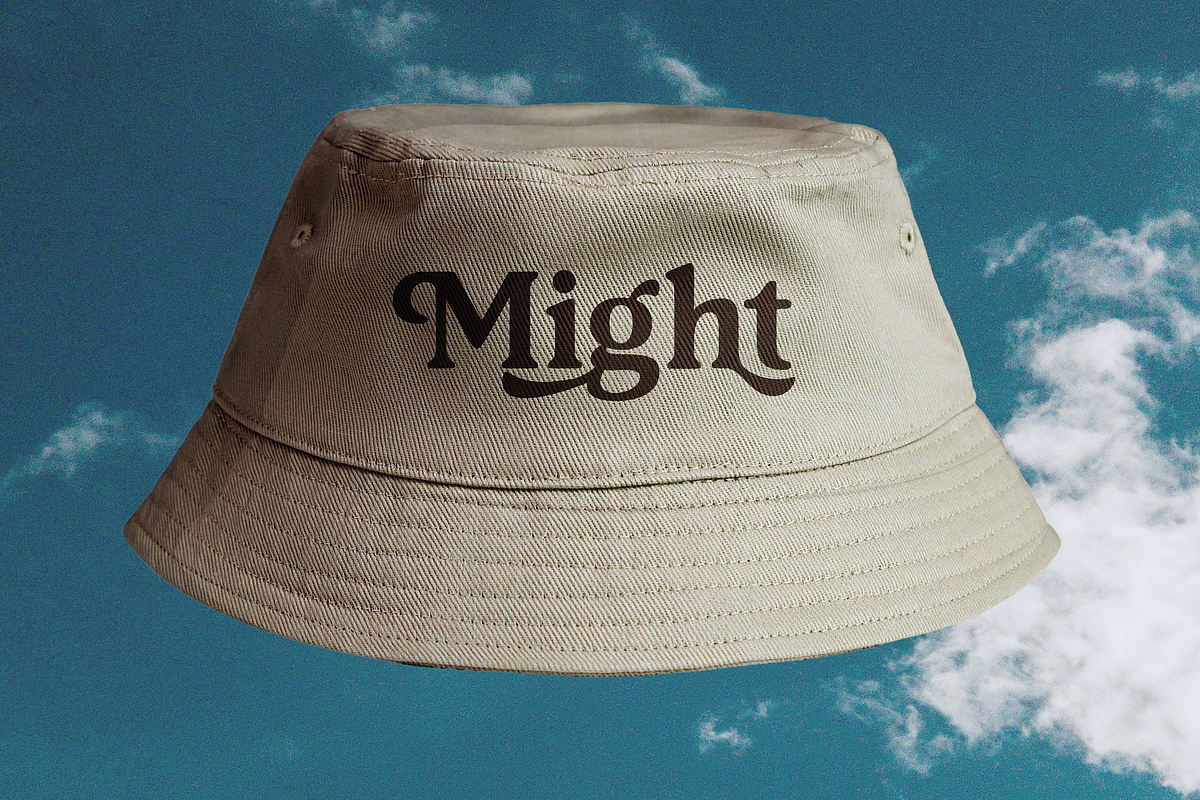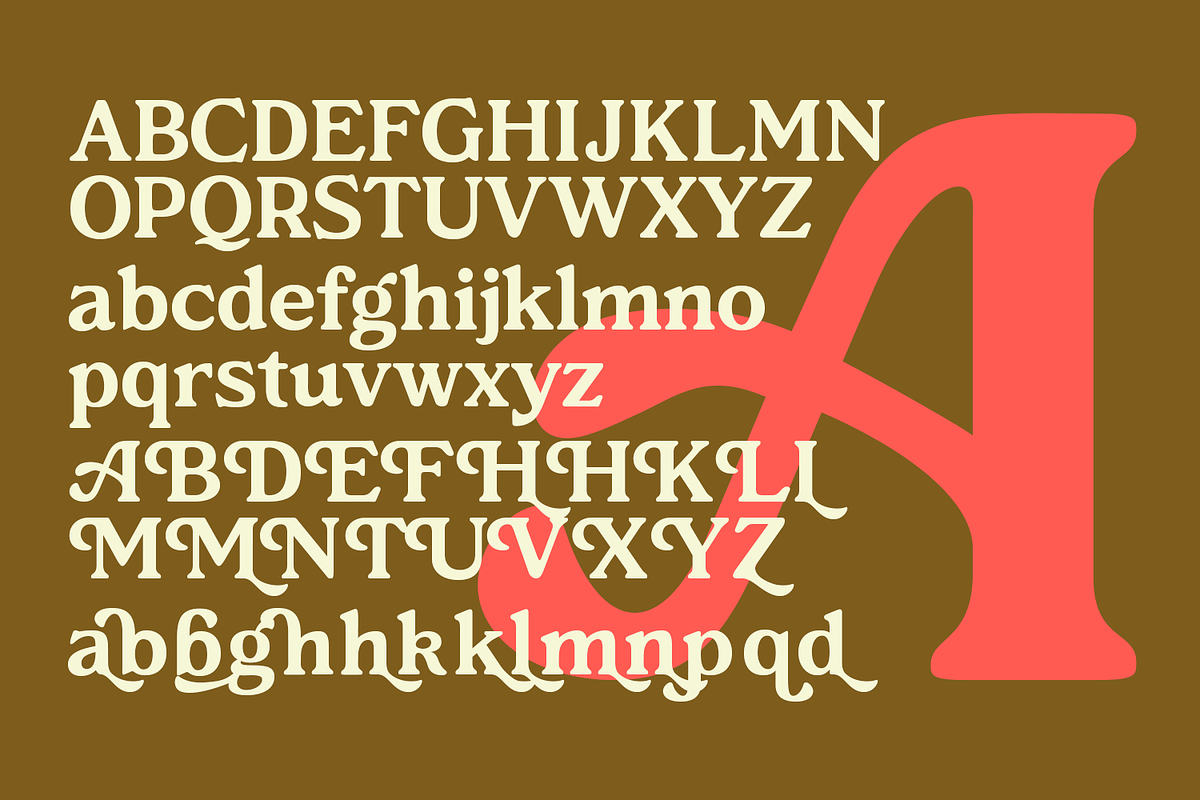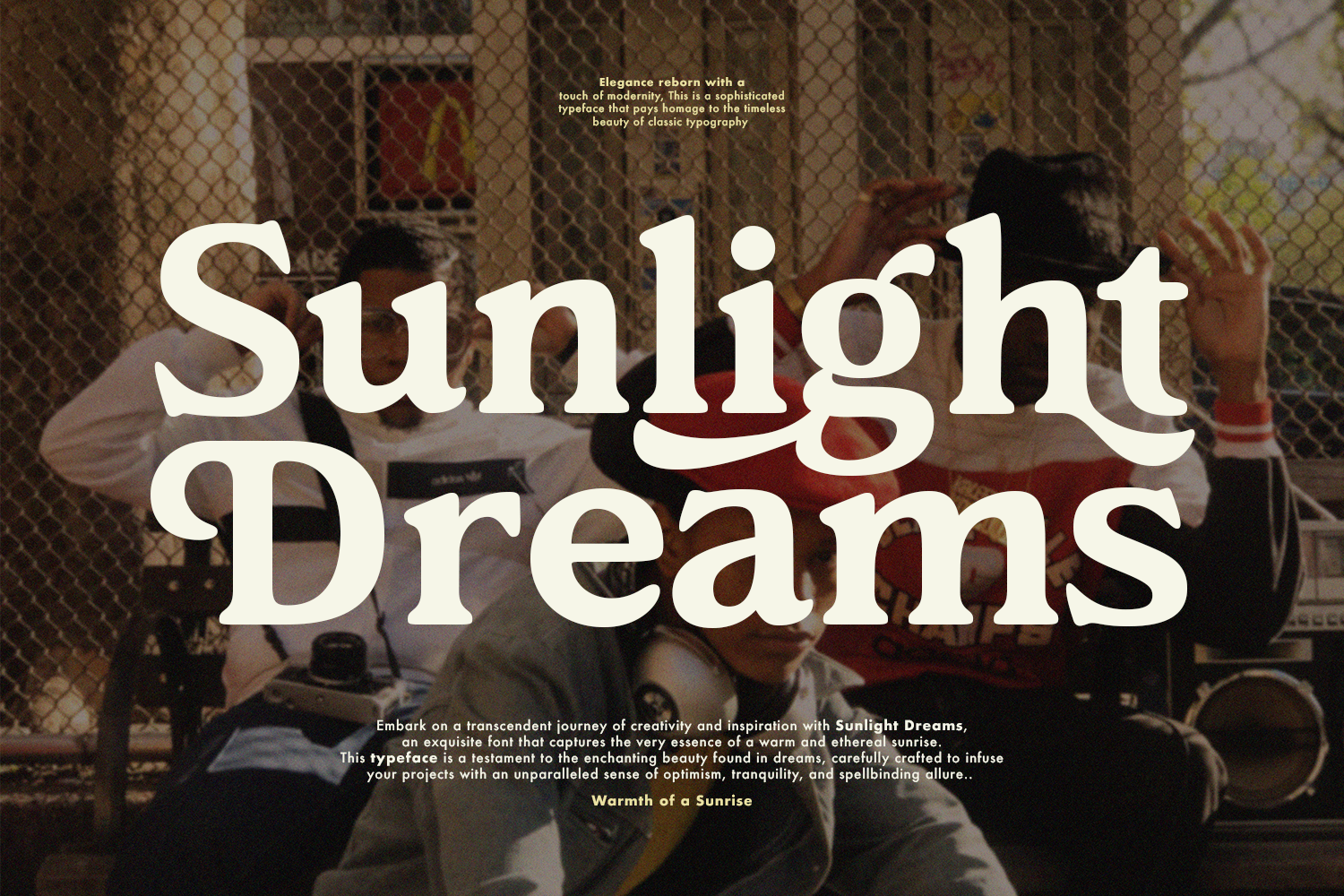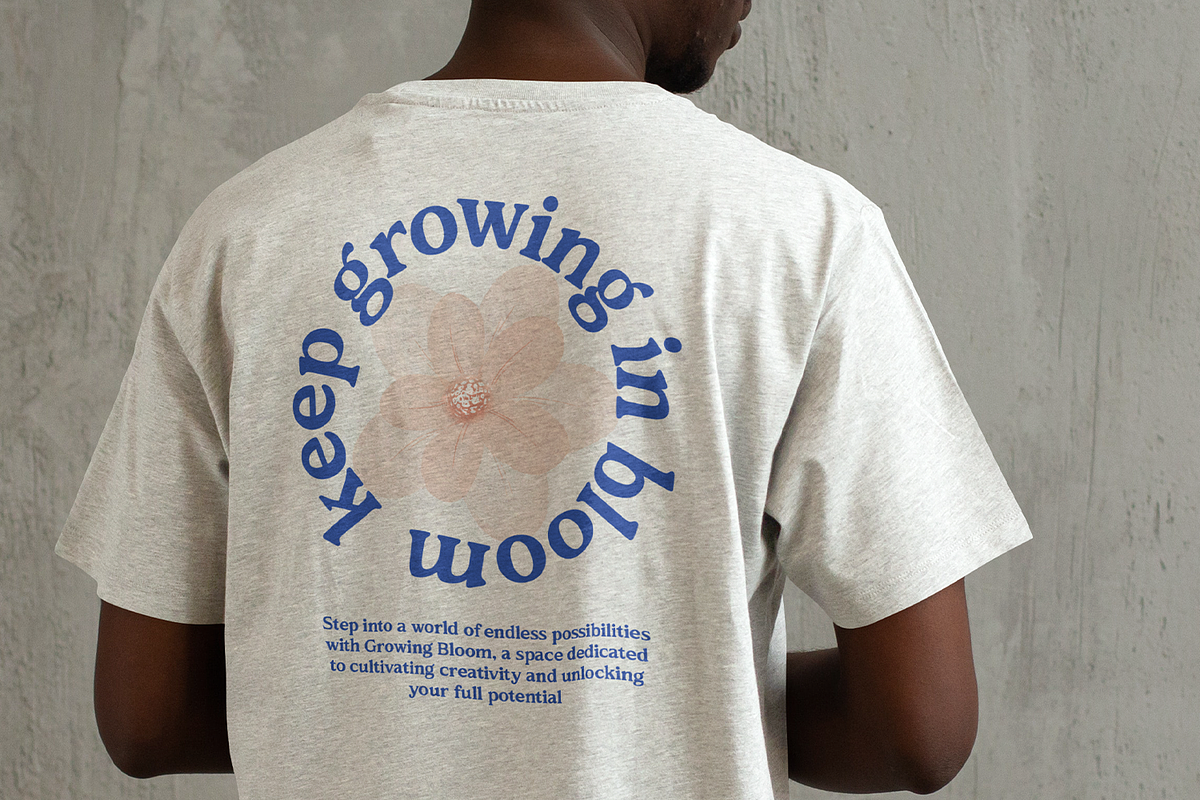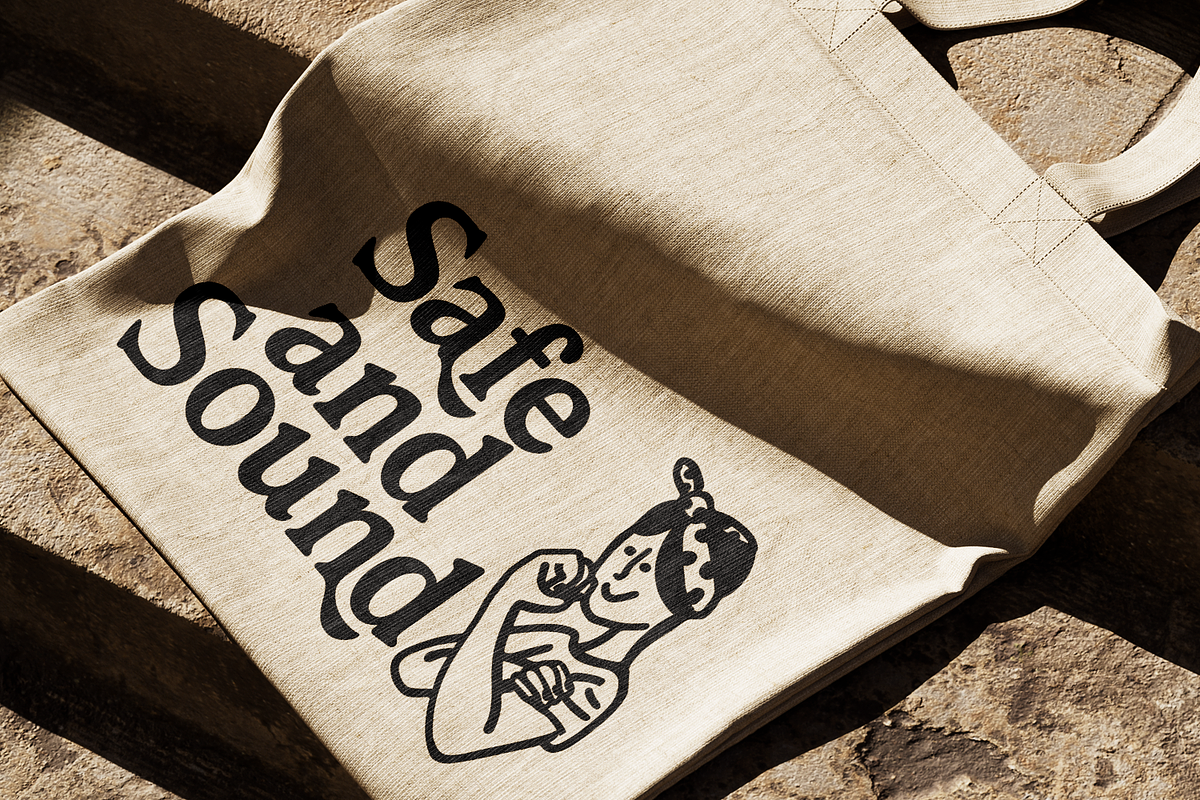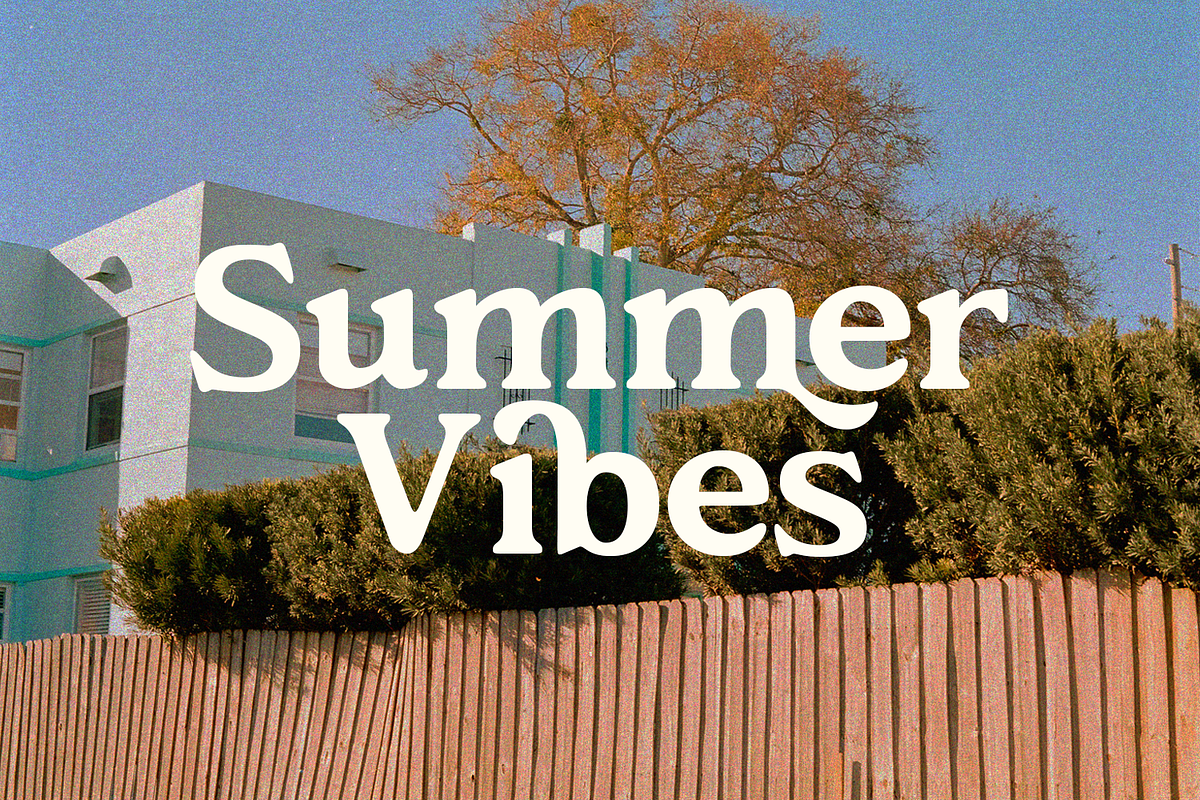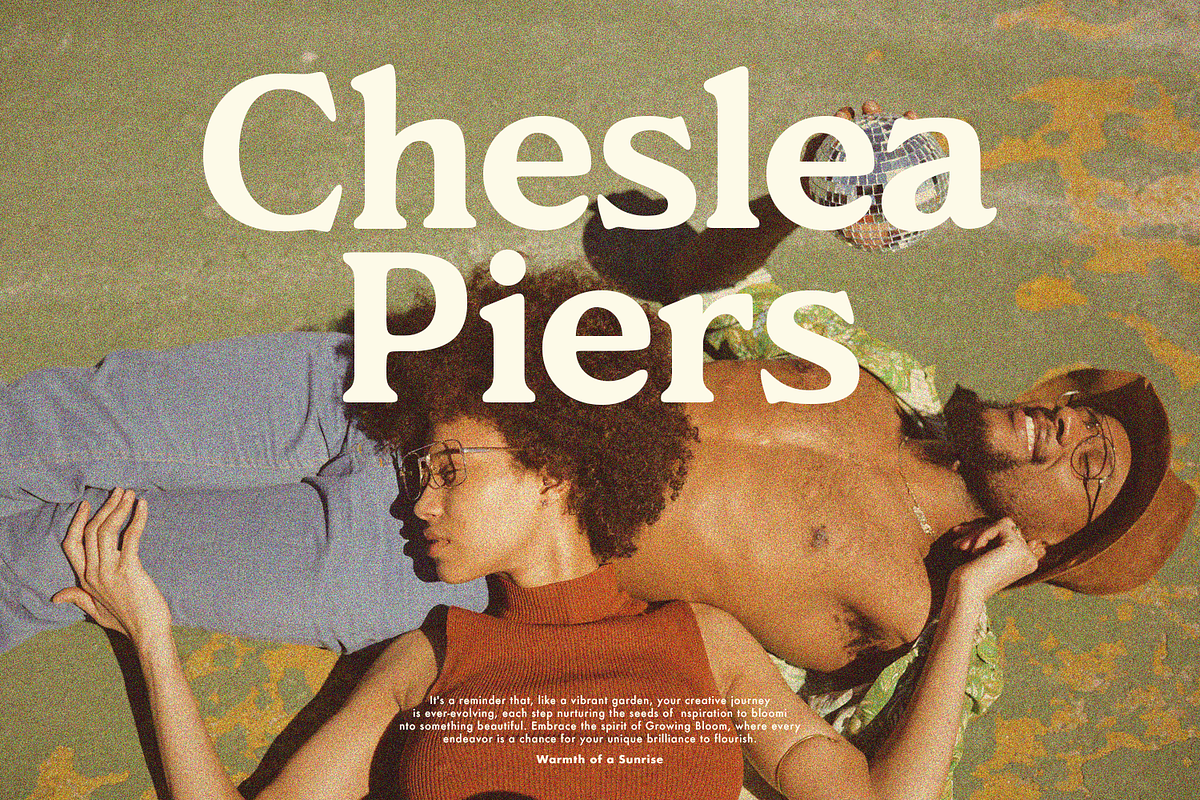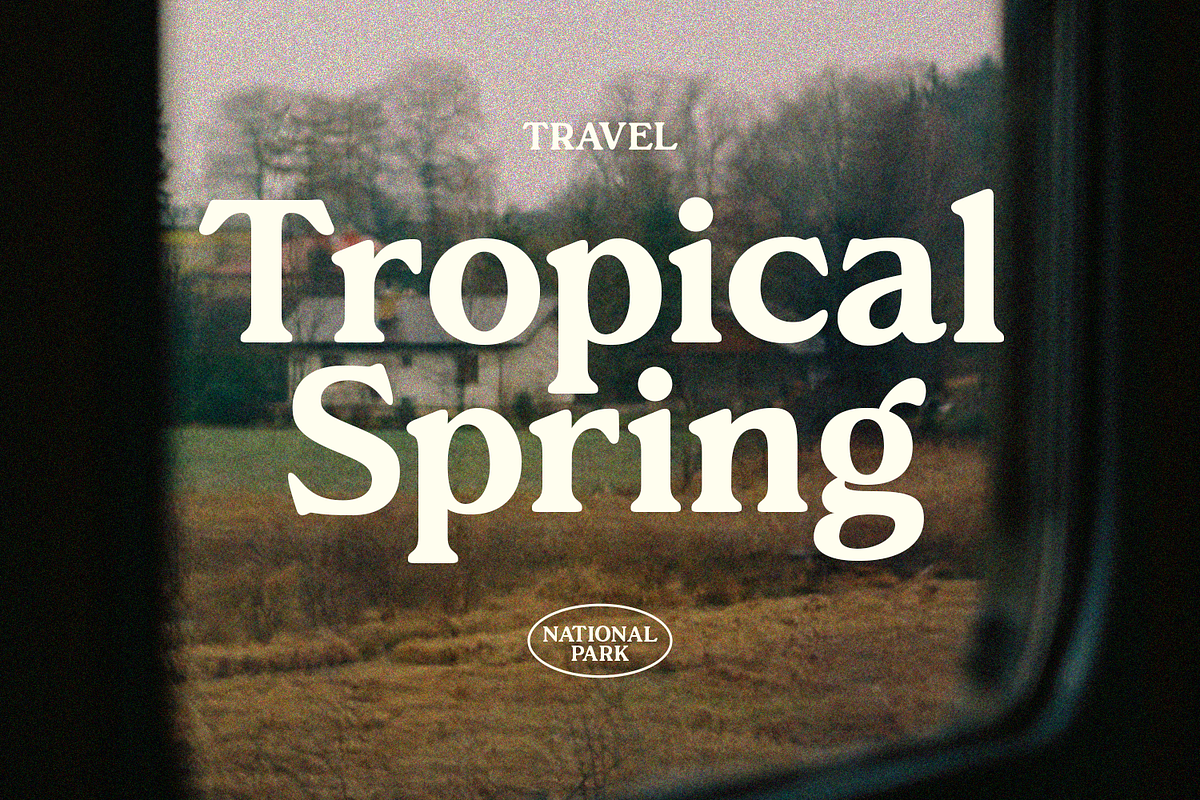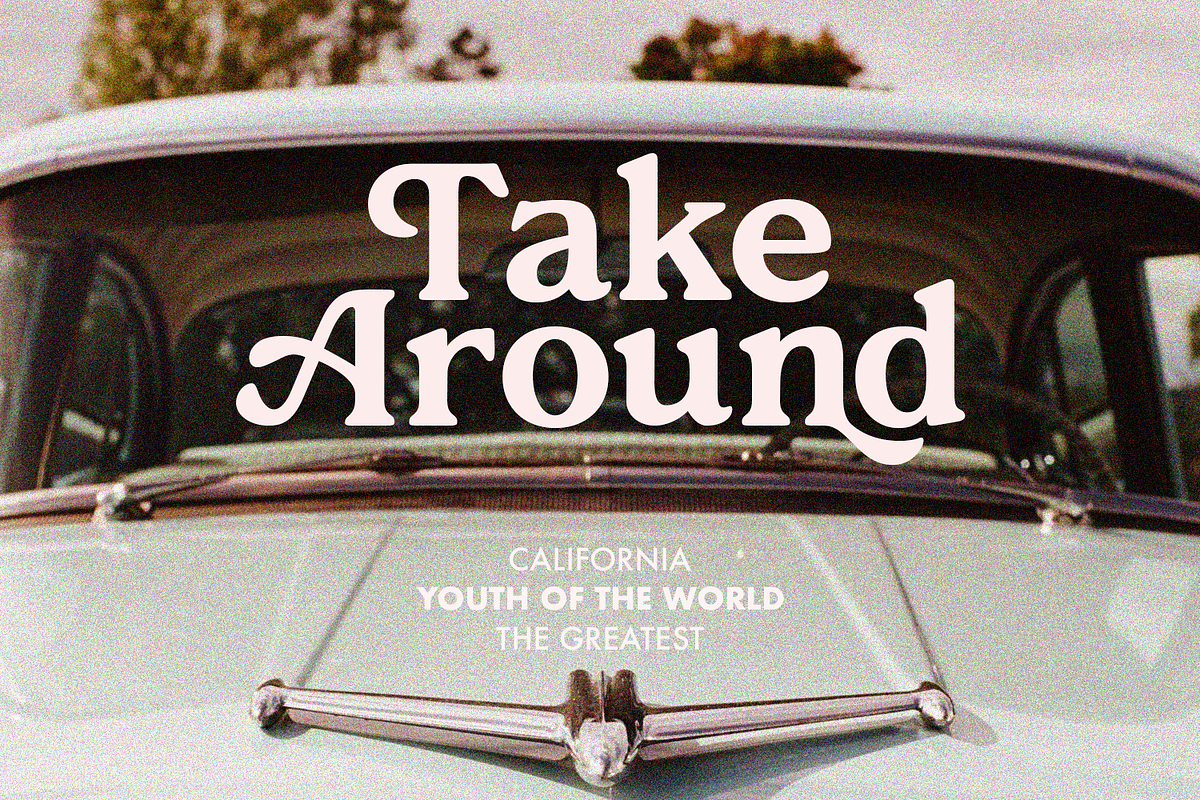
Sunlight Dreams - Retro Serif Font
Introducing Sunlight Dreams, a retro serif font that seamlessly combines vintage charm with contemporary flair. Meticulously crafted, its sophisticated serifs and gentle curvature exude warmth and timeless appeal. Ideal for various design applications, this font adds a touch of refined nostalgia, making it perfect for branding, packaging, and creative projects. Embrace the timeless allure of 'Sunlight Dreams' to elevate your designs with a hint of vintage elegance.